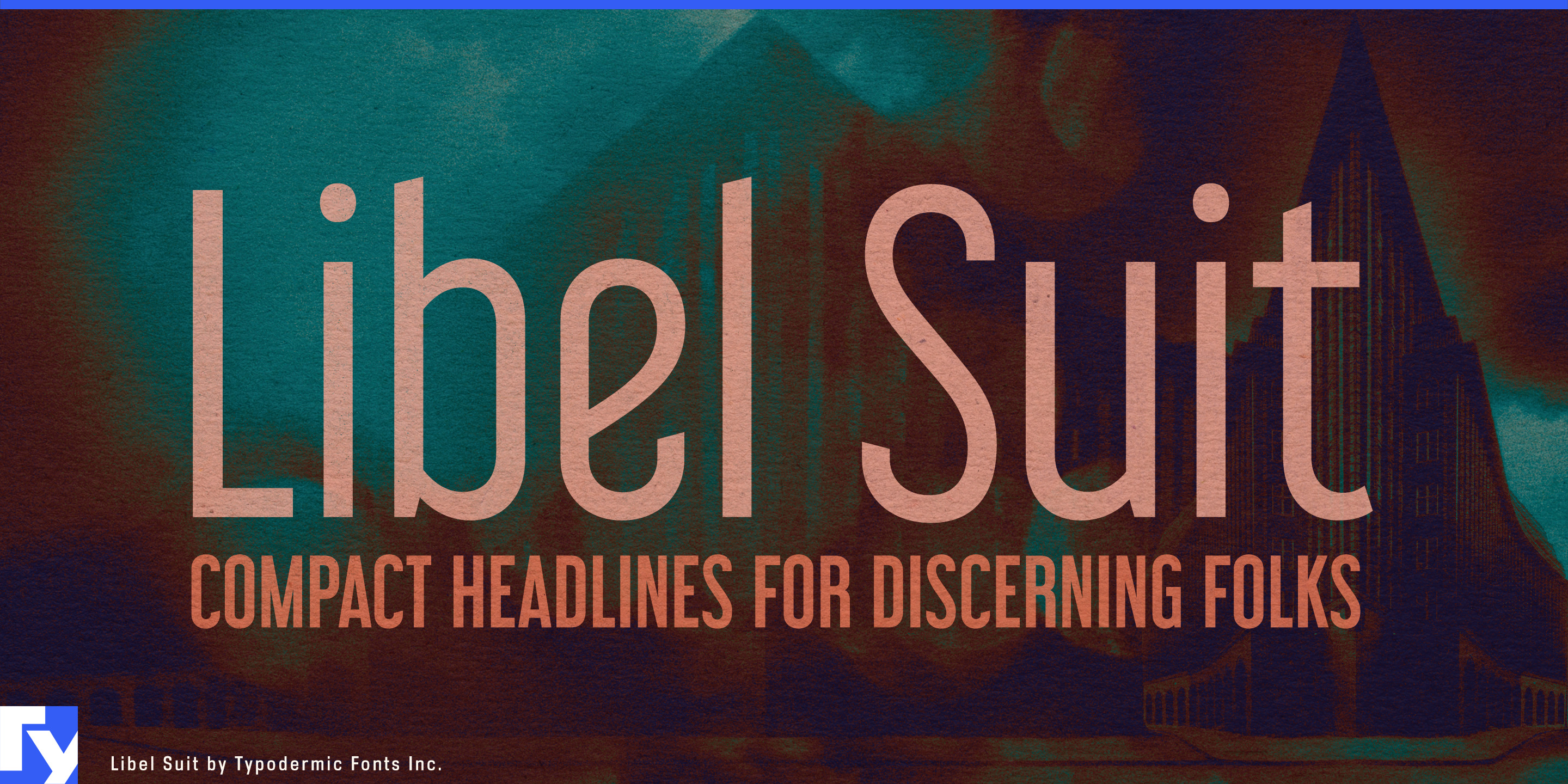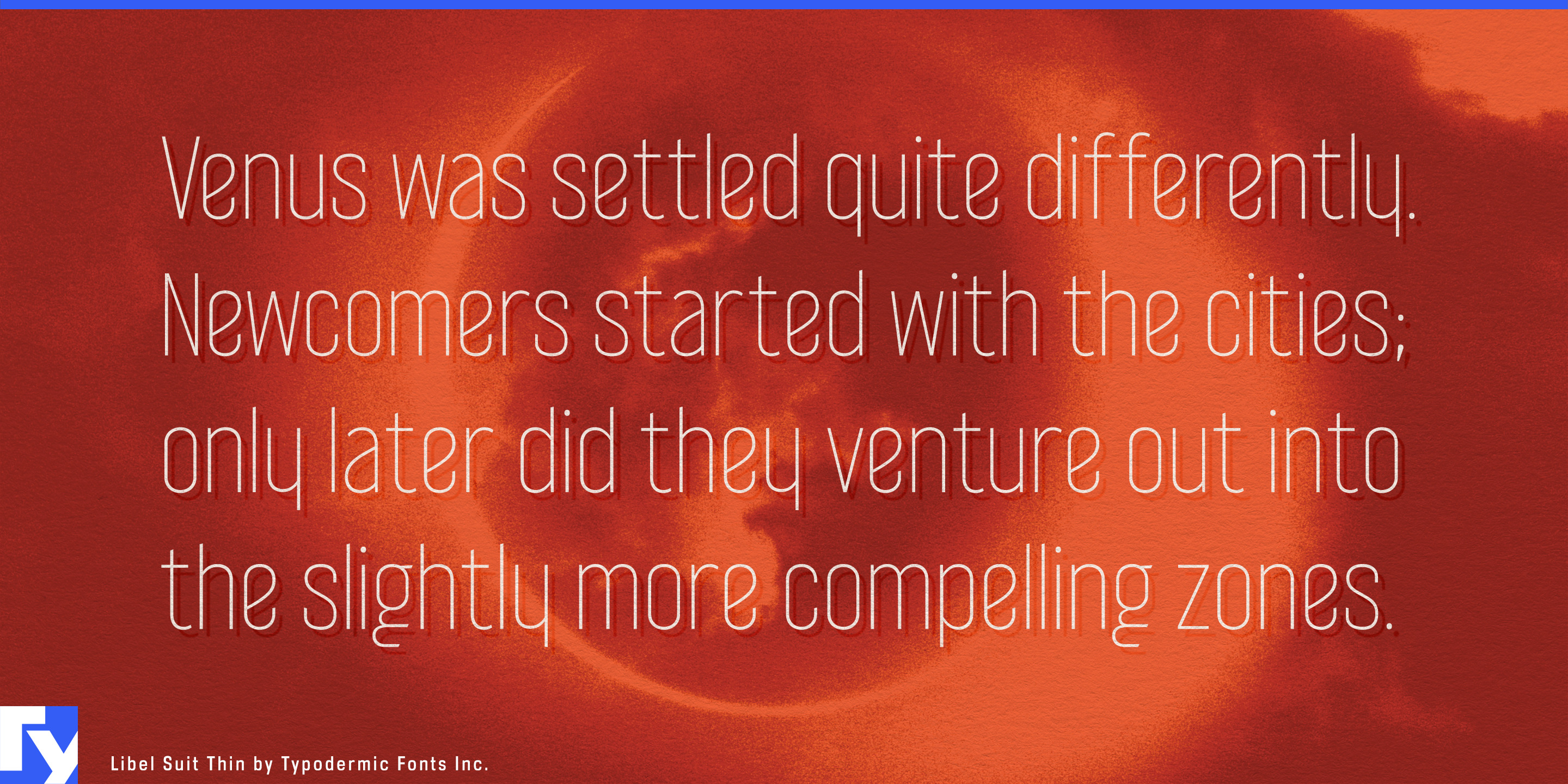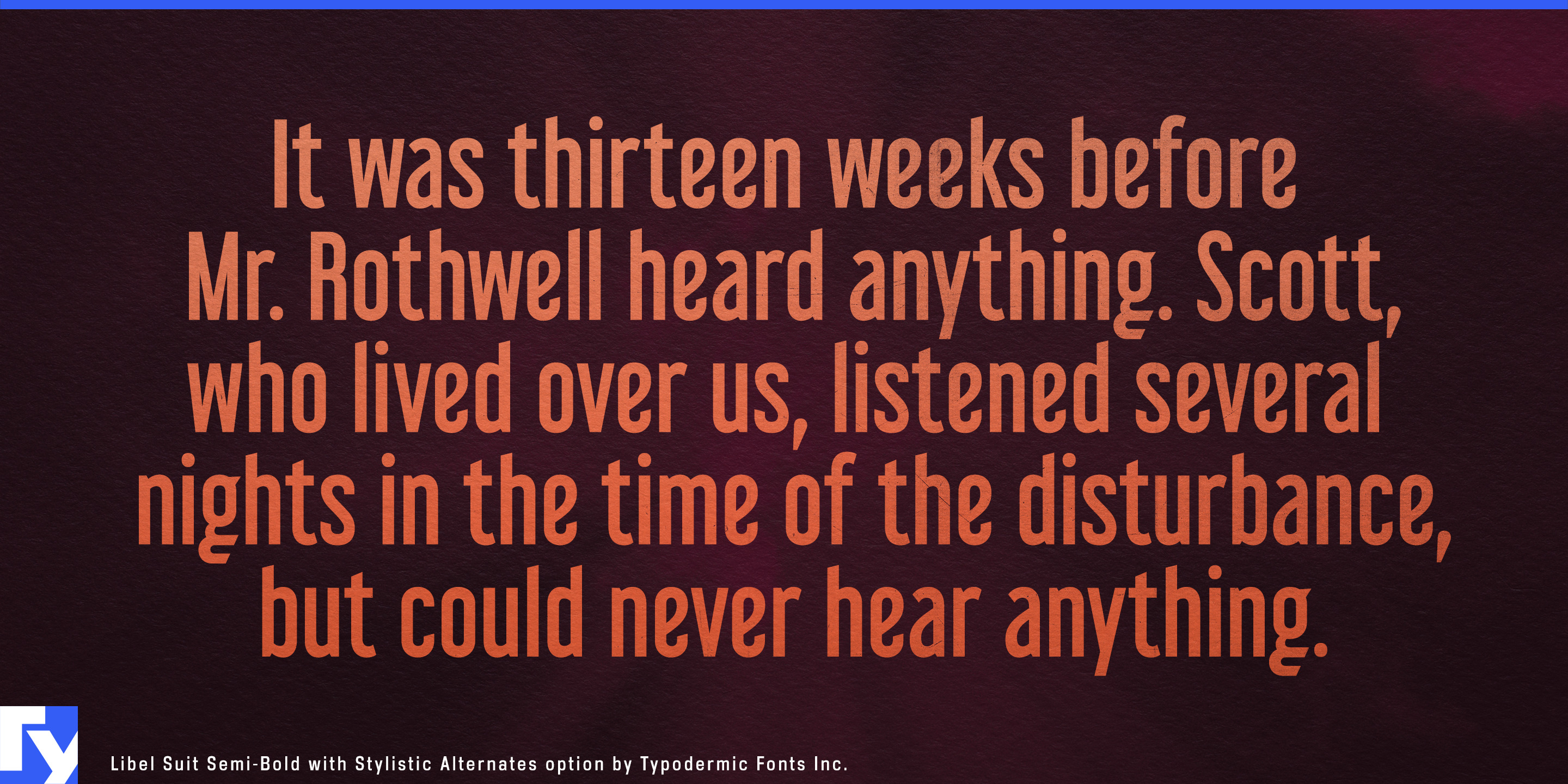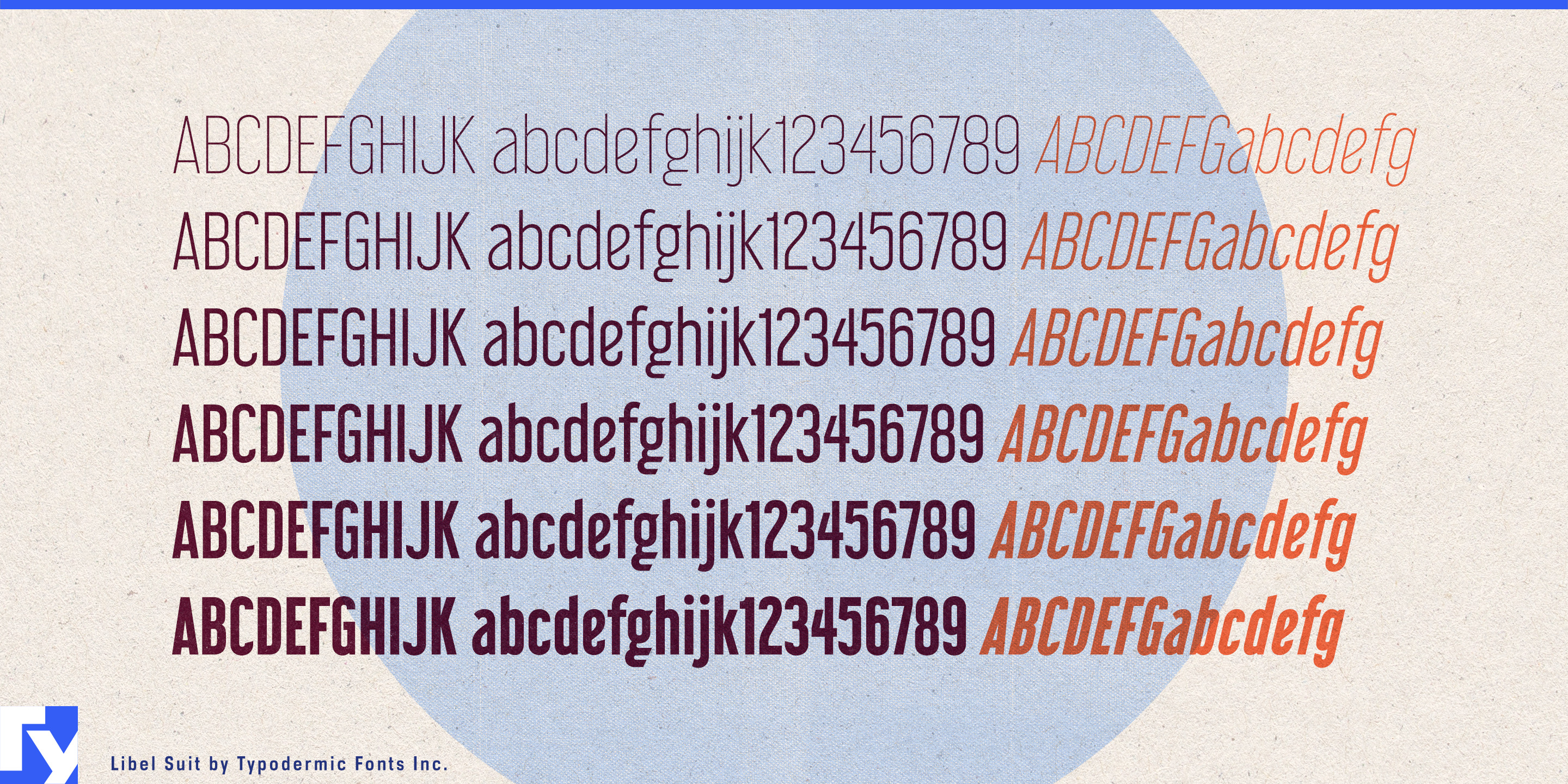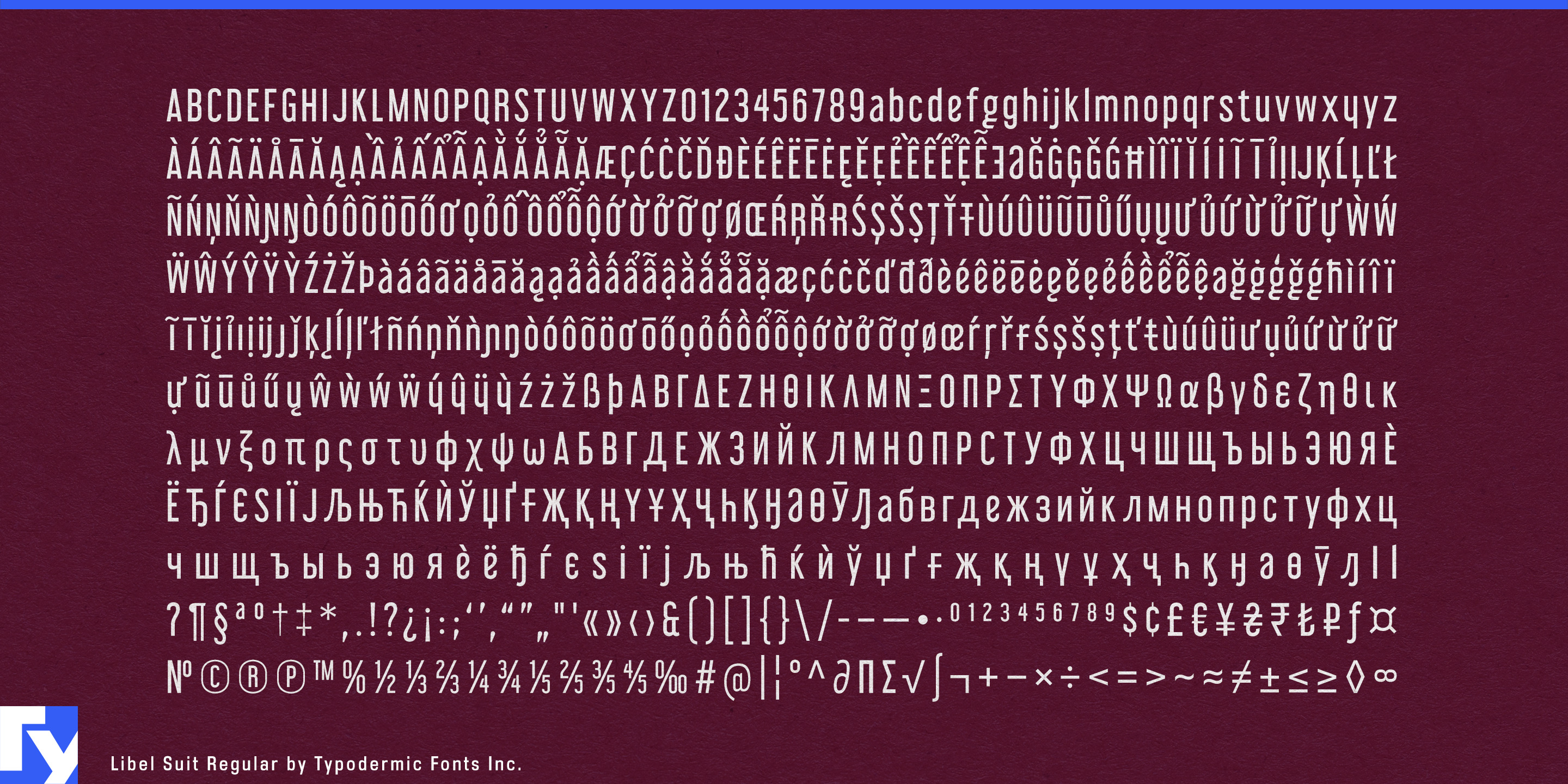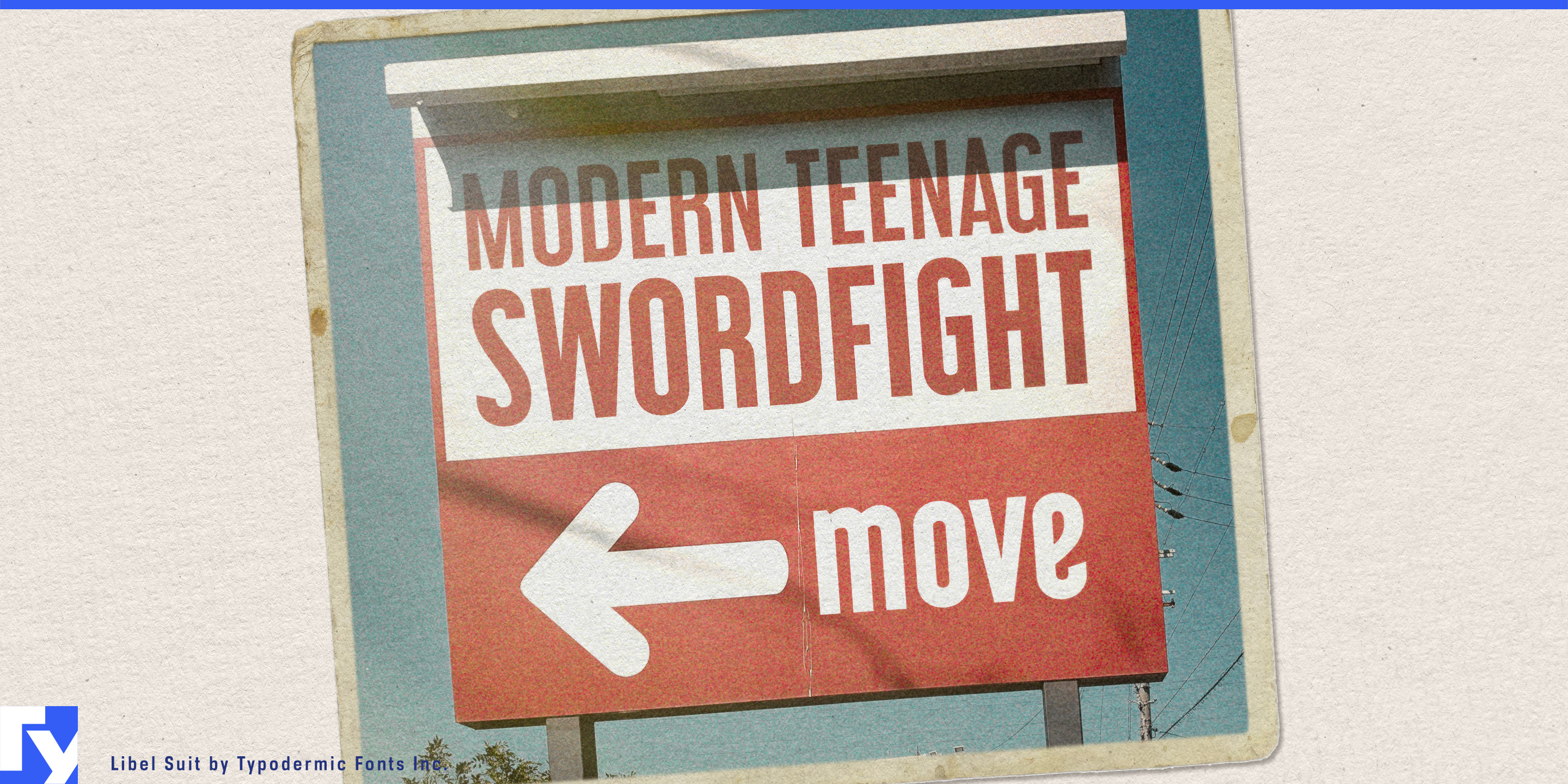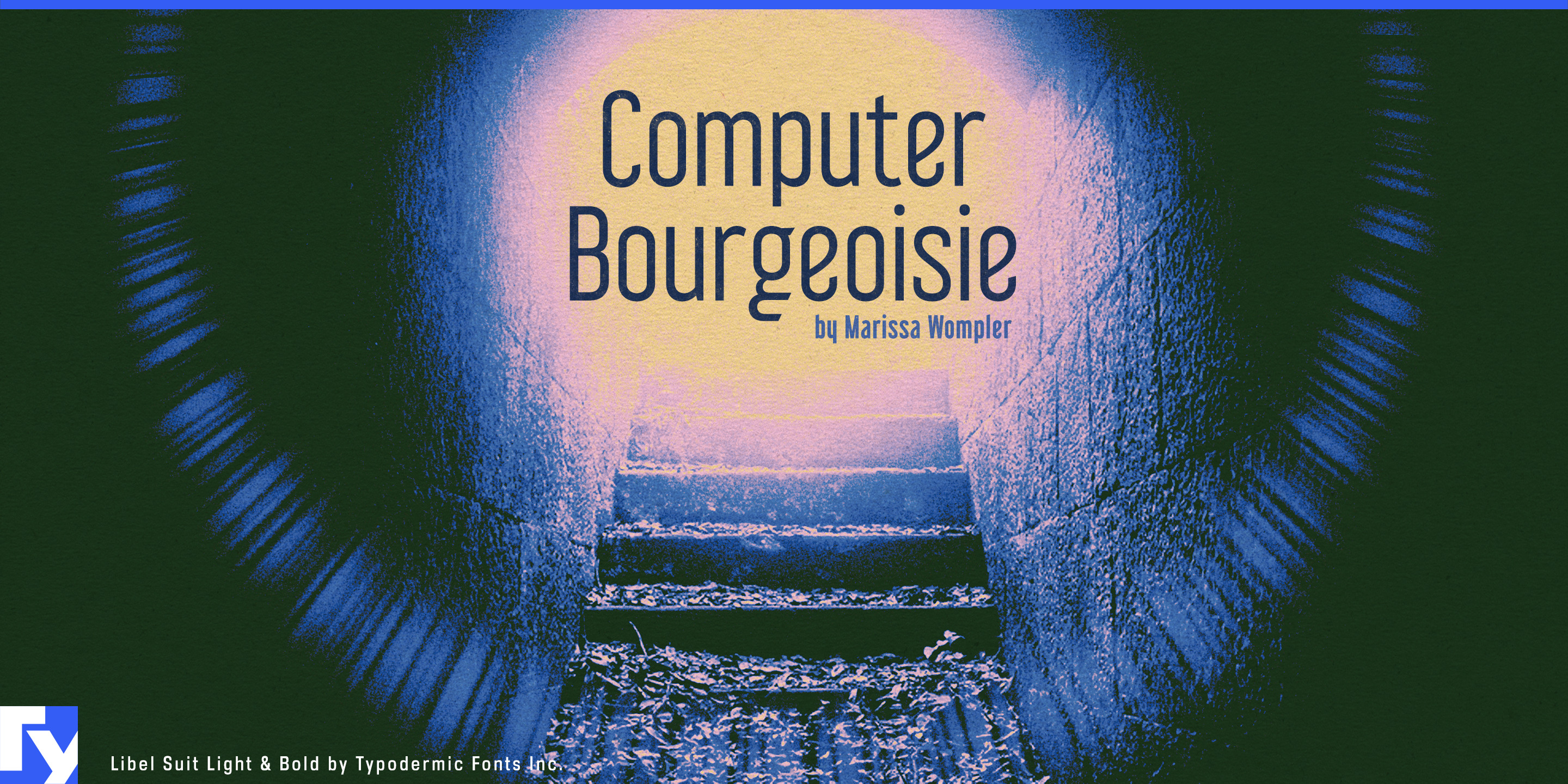
Libel Suit
Libel Suit is a slim, flat-sided sans-serif typeface built for the demands of contemporary design. Its compact proportions make it a natural choice when space is at a premium, yet it never feels cramped or mechanical. A quiet eccentricity runs through the letterforms—the unconventional waistline heights and angled stroke endings give it a distinctive texture without tying it to any particular era.
This is a typeface that thrives in high-visibility roles: editorial headlines that need to be assertive but not overbearing; film credits where clarity and style share the frame; product labels where every millimeter counts; transit maps and wayfinding systems that demand efficiency and legibility; and UI headers and infographics that balance precision with visual interest. With full Latin, Cyrillic, Greek, and Vietnamese support, it carries its personality seamlessly across global campaigns.
Six weights with italics let you fine-tune hierarchy, while features like fractions, ordinals, and stylistic alternates offer subtle ways to adjust tone—from the slightly unconventional to the more restrained. Libel Suit doesn’t shout, but it has a presence you can feel—polished, compact, and just a little unexpected.